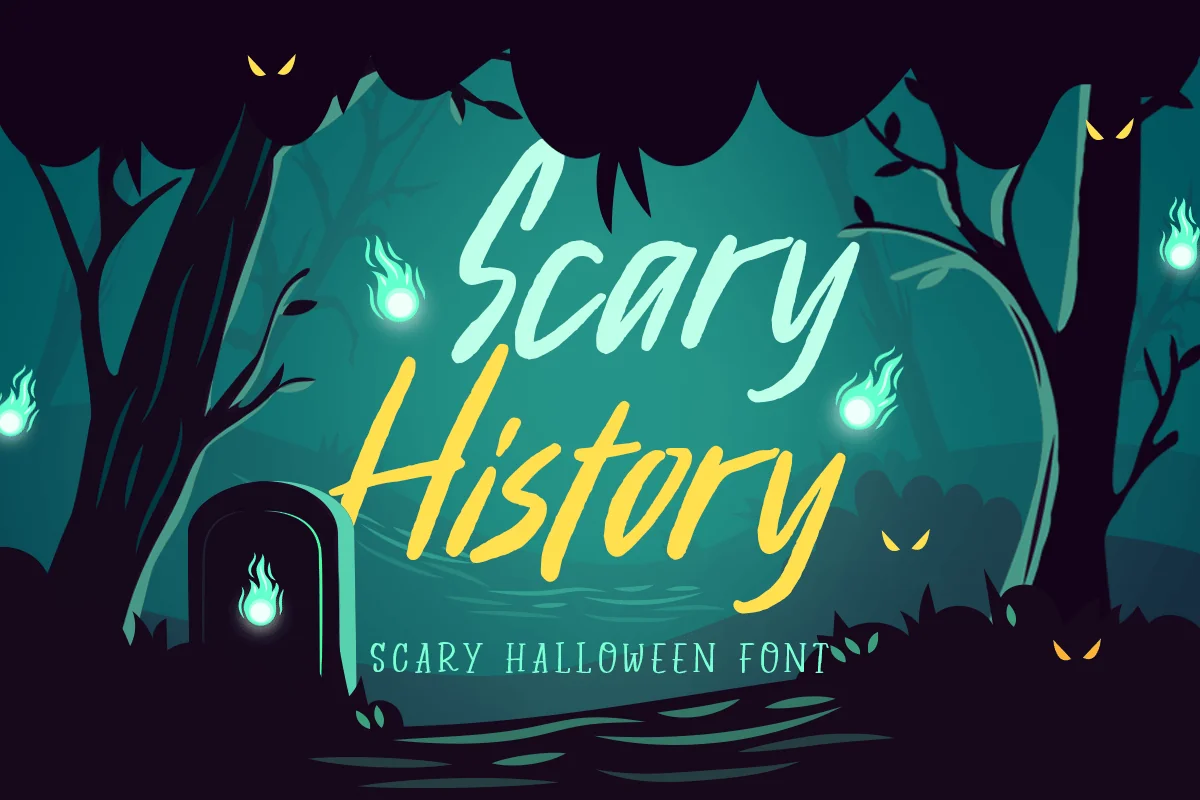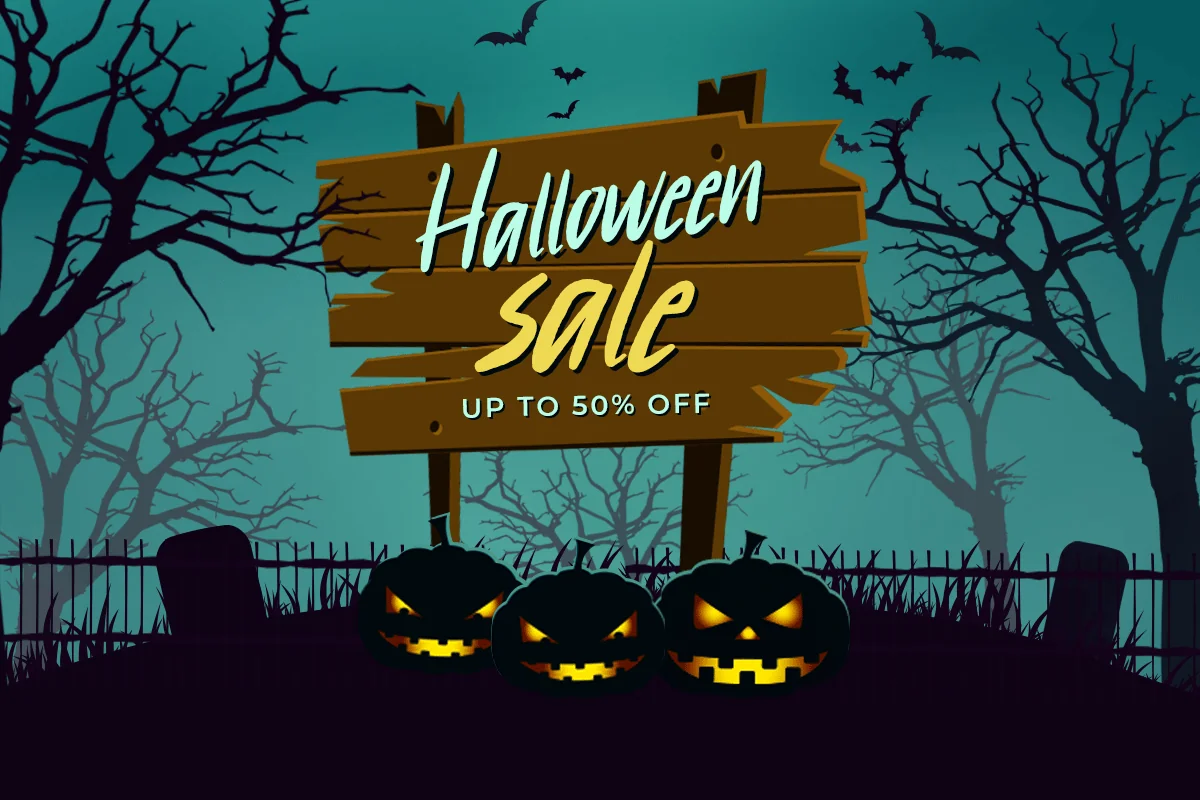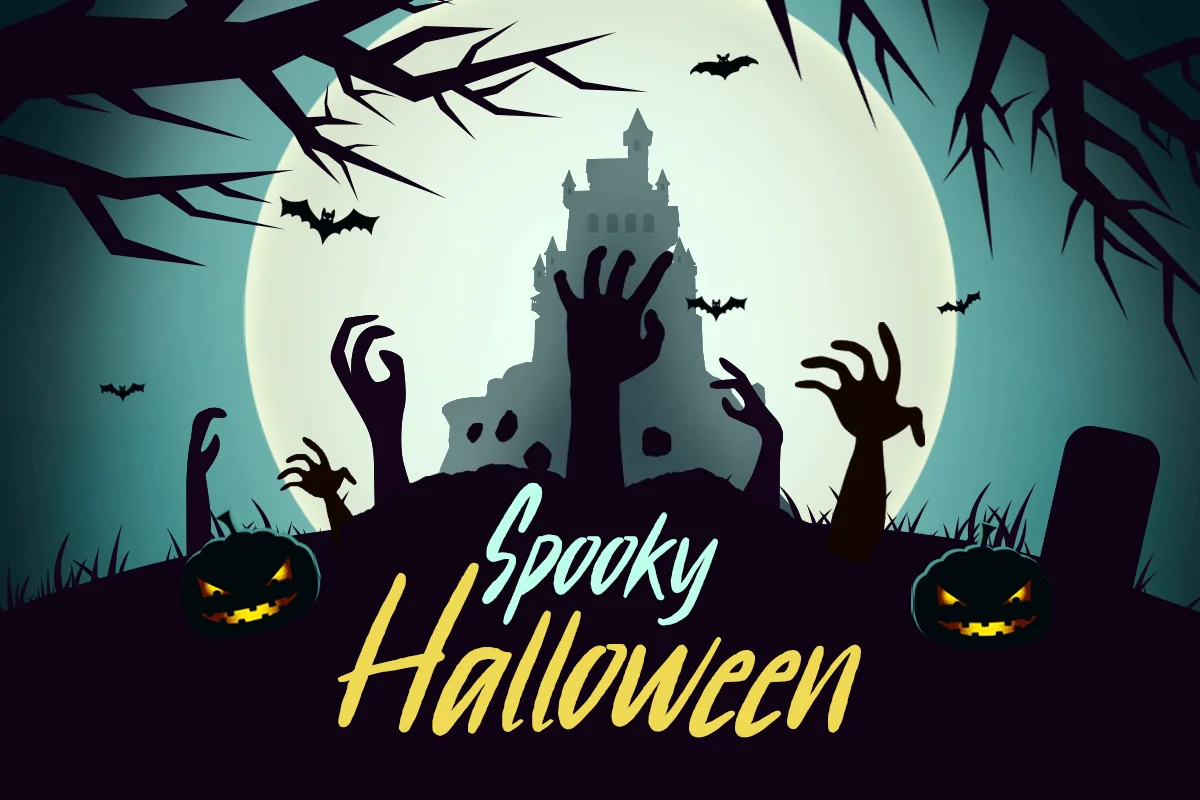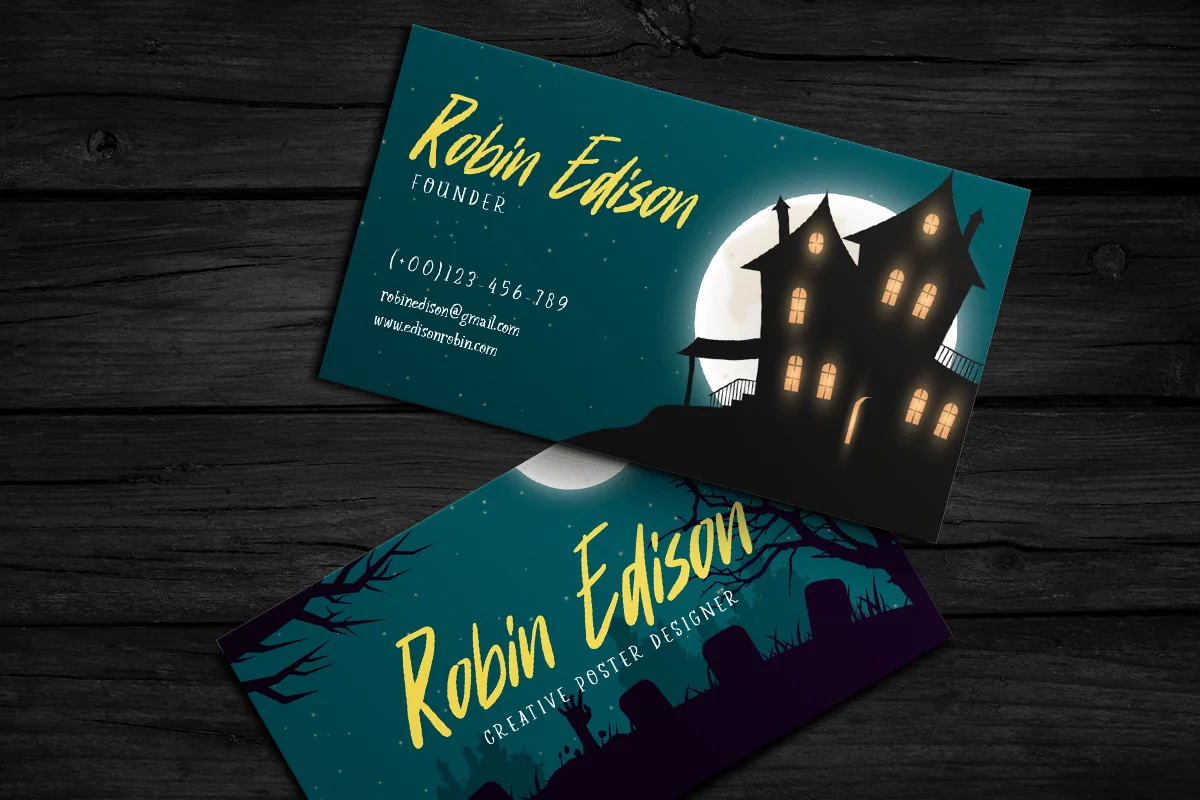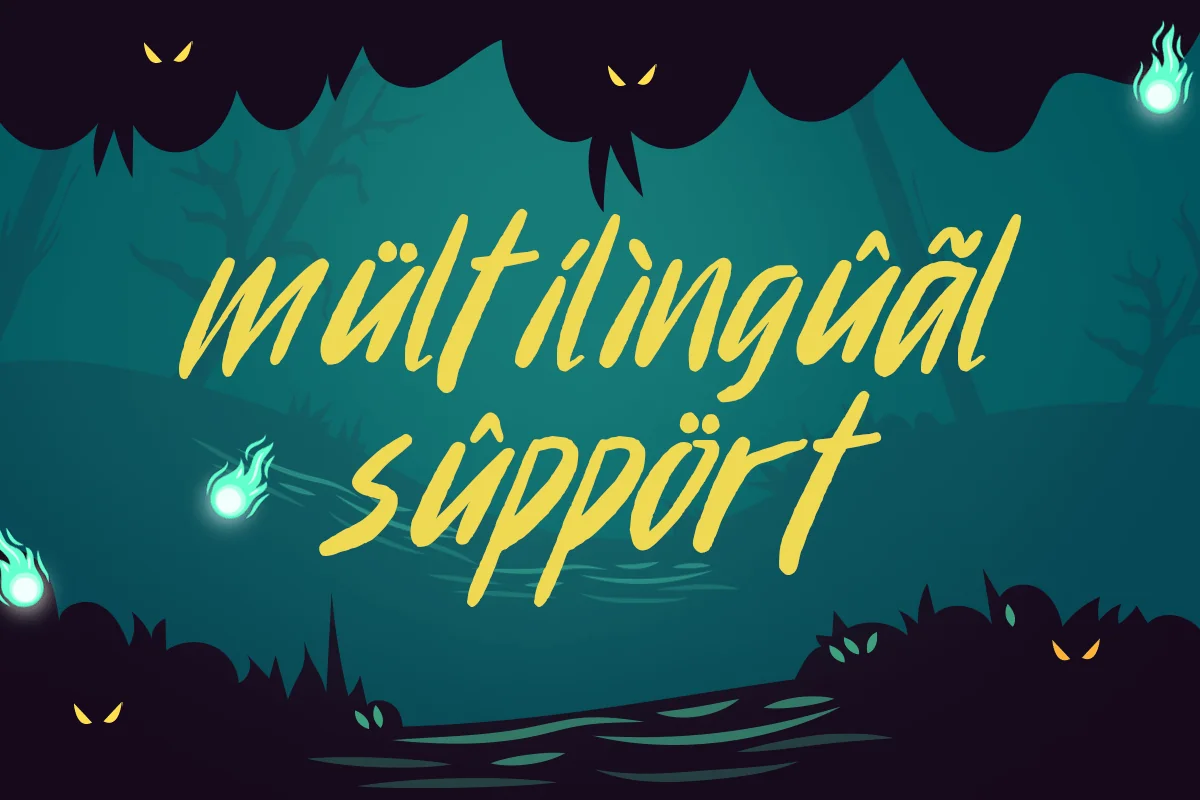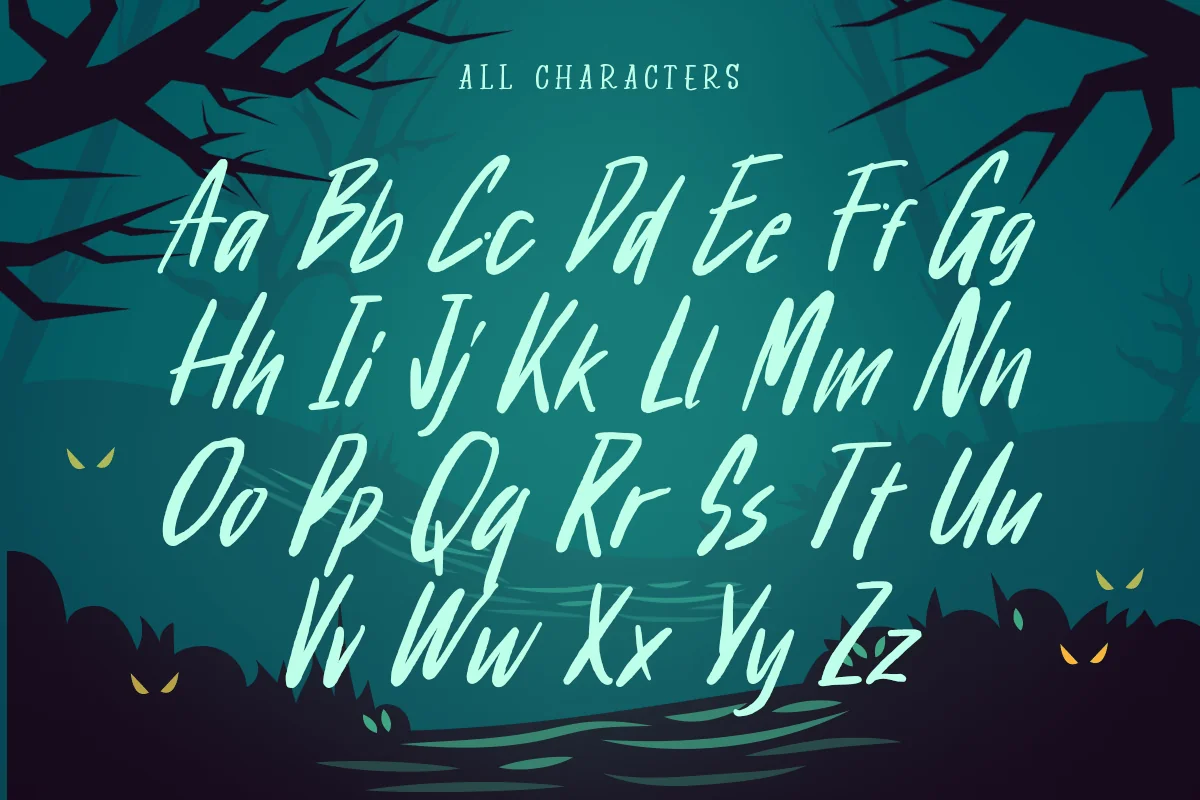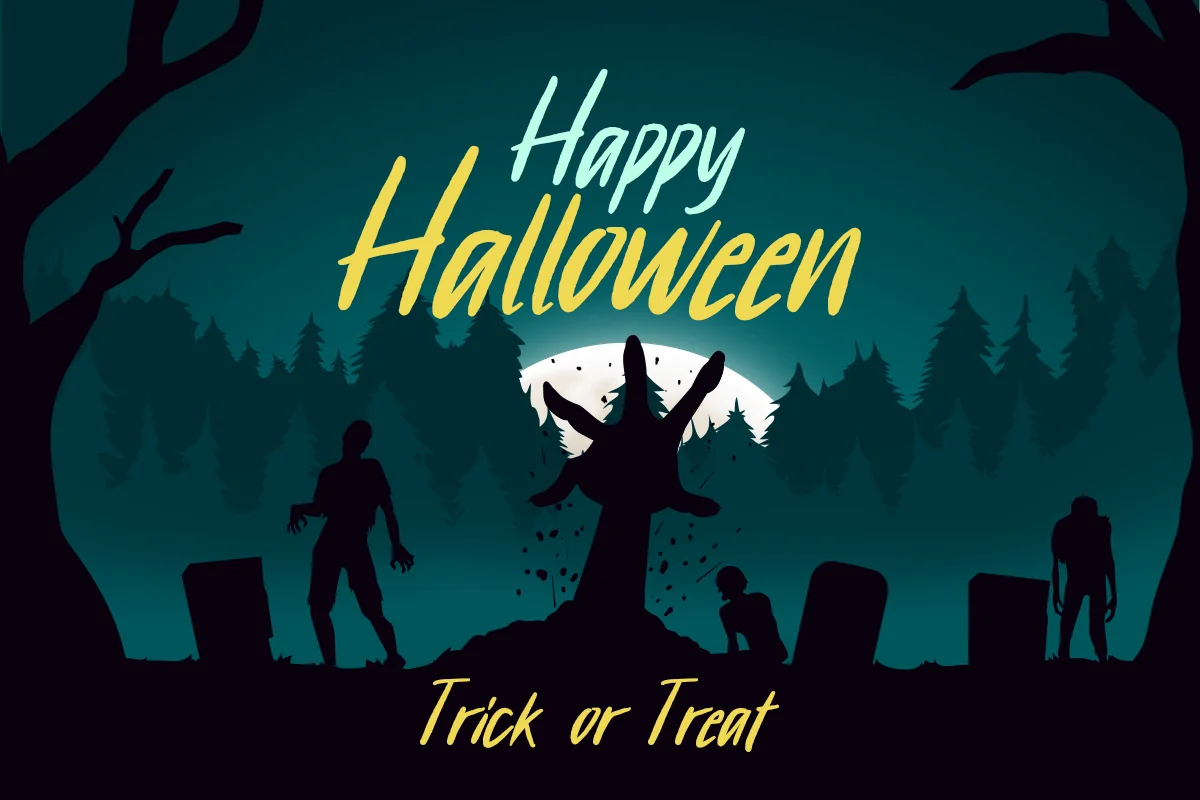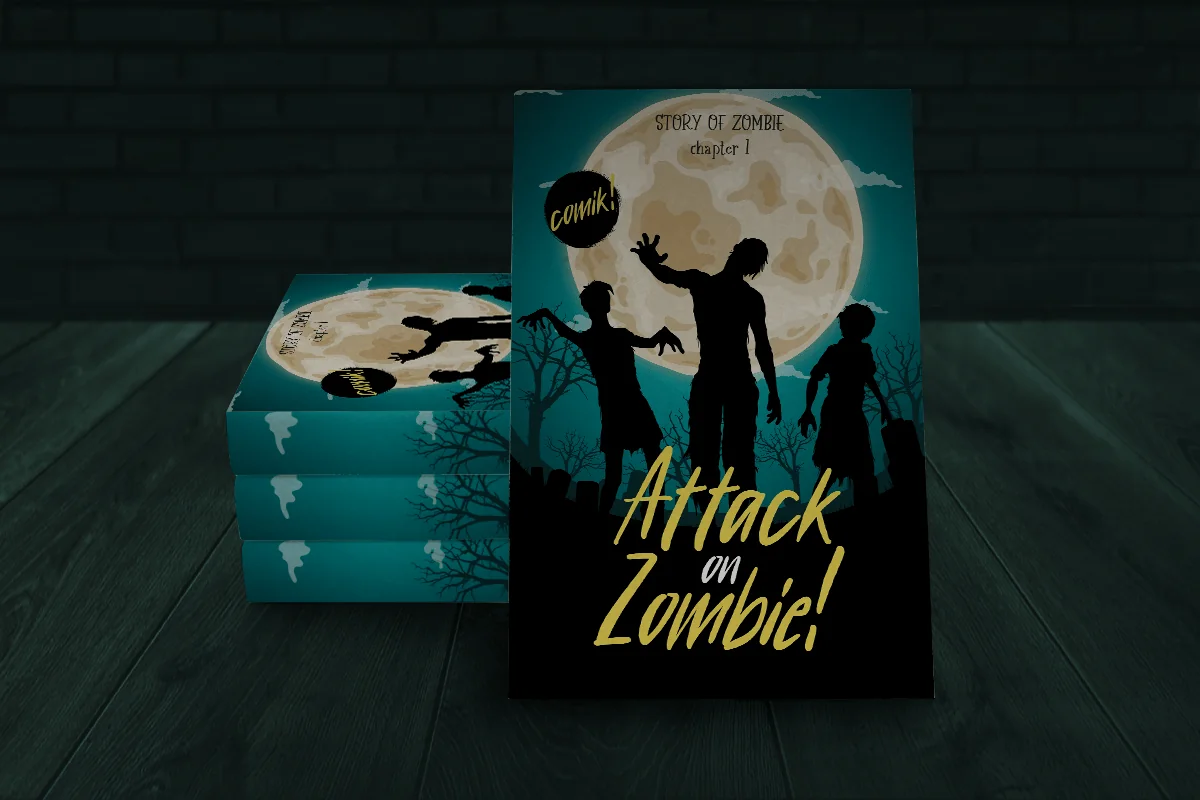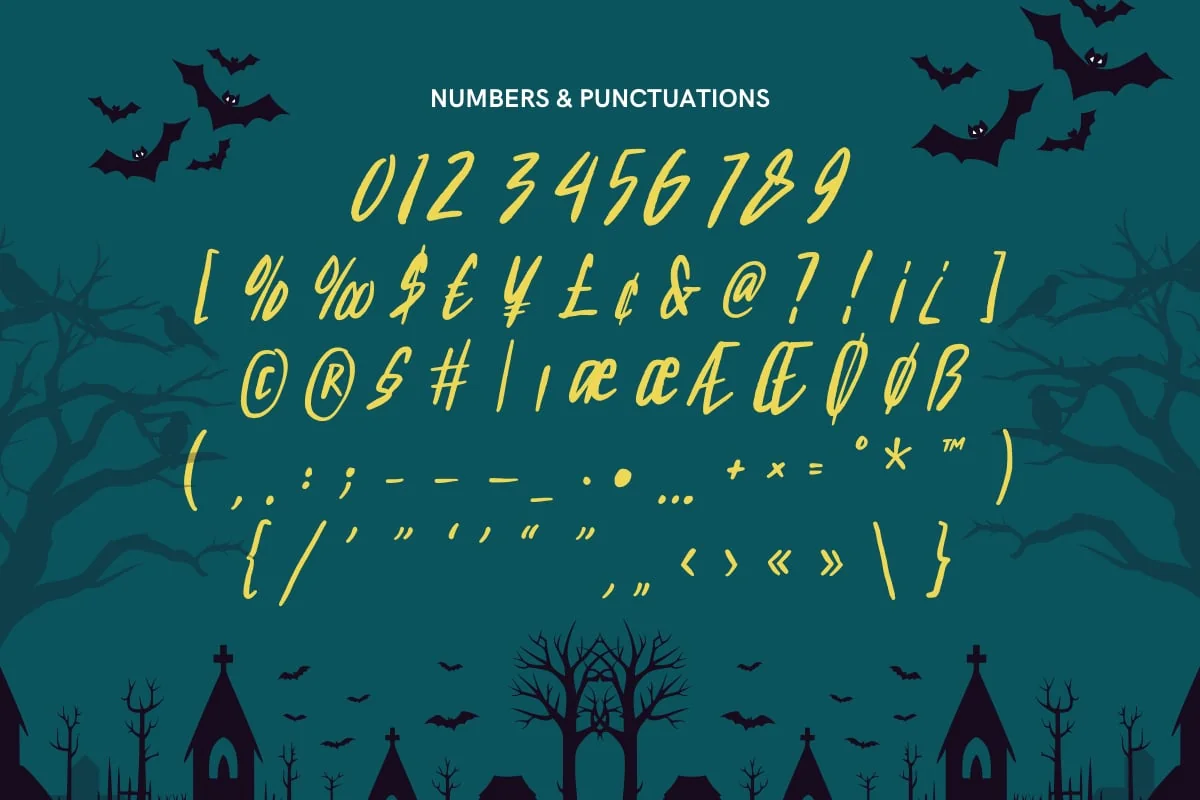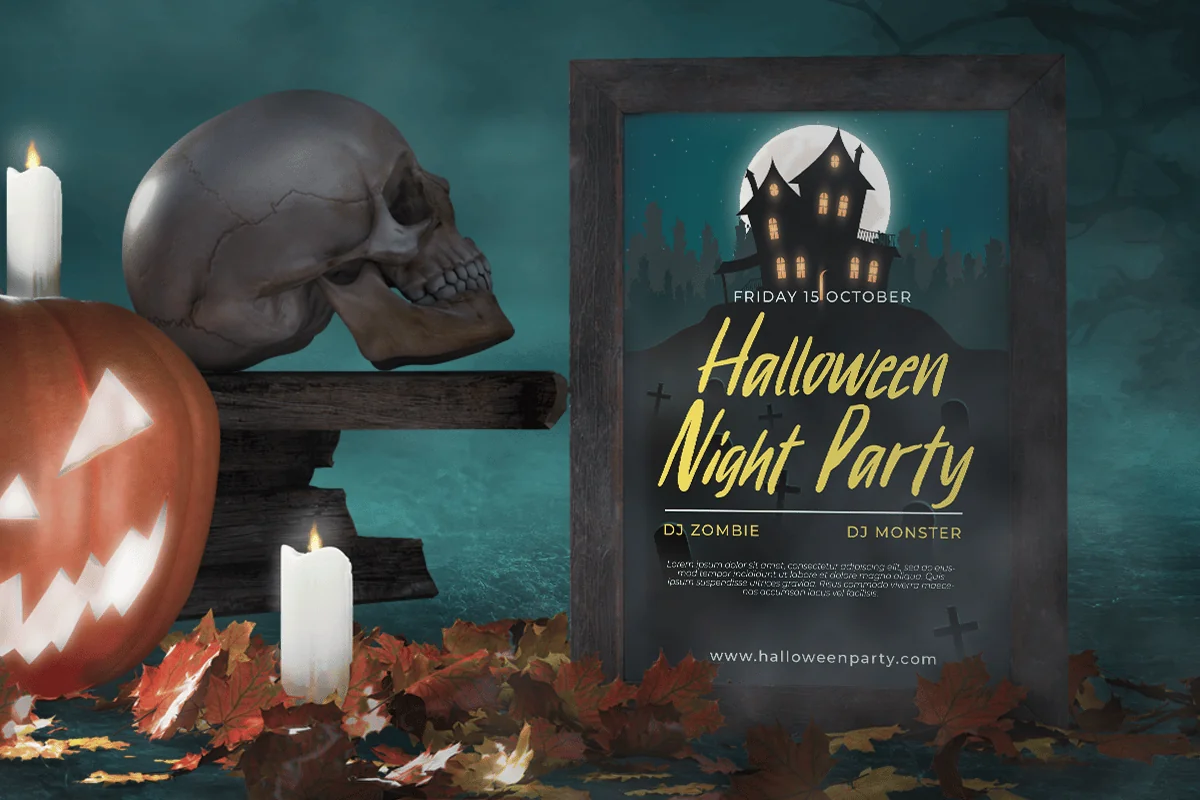
Scary History – Scary Halloween Font
Scary History is the ultimate Halloween font, designed to give your projects a chilling and eerie atmosphere. Its sharp, jagged edges and haunting style make it perfect for Halloween posters, haunted house flyers, and spooky branding. Whether you’re working on party invitations or designing for horror-themed events, Scary History will add a frightening touch to any design.
This font draws inspiration from ancient, forgotten tales, giving it a historical twist that enhances its unsettling effect. It’s not just a font for Halloween but also for any project that demands a darker, more sinister vibe. Scary History captures the essence of horror, making your designs stand out with a spine-tingling aesthetic.
With its bold and terrifying characters, Scary History is perfect for designers who want to add a scary yet stylish edge to their Halloween-themed creations.
- Unique Scary Characters Ready